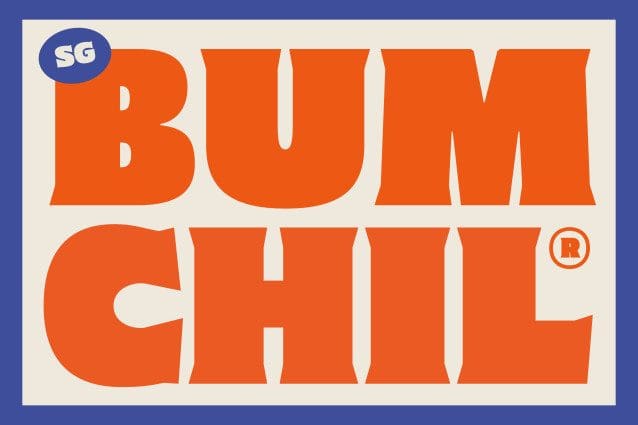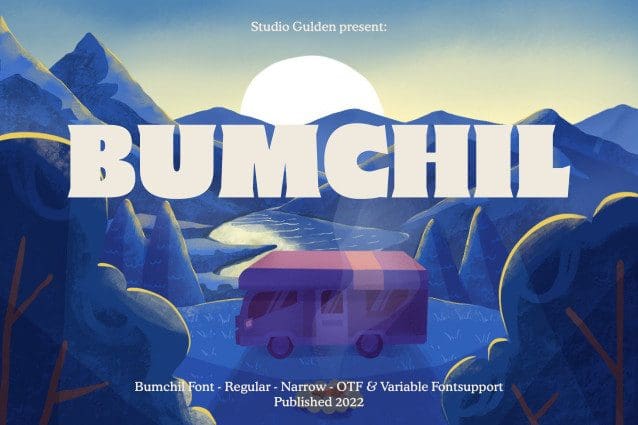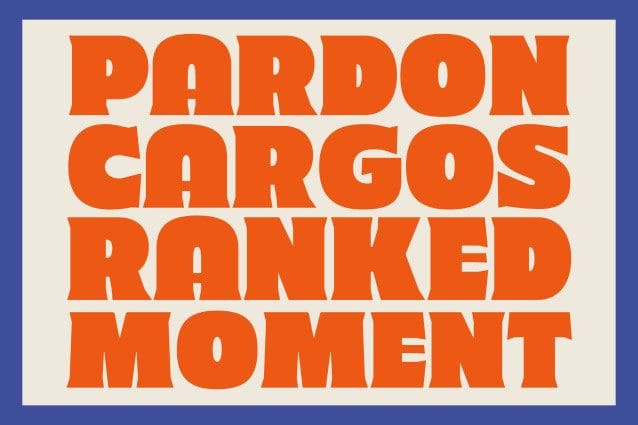
SG Bumchil Font
SG Bumchil Font is a display font with 4 various styles for your needs. Bumchil has uppercase and lowercase letters. It’s fun, pop, and playful!